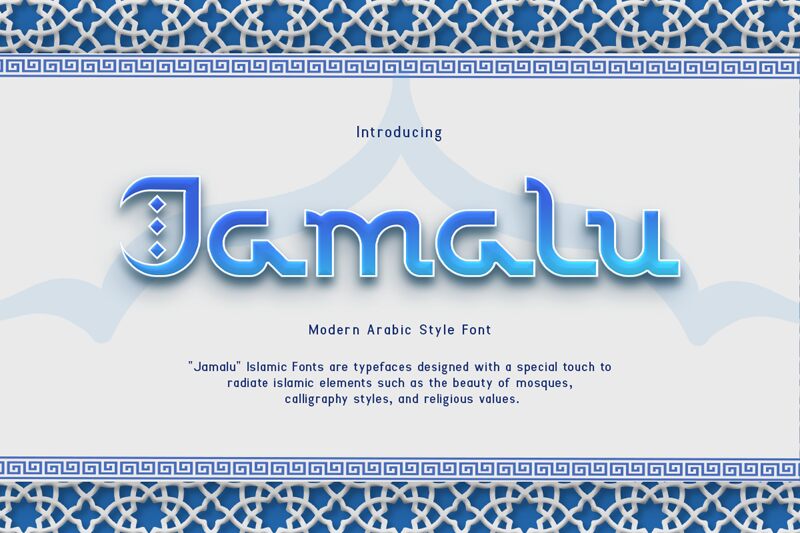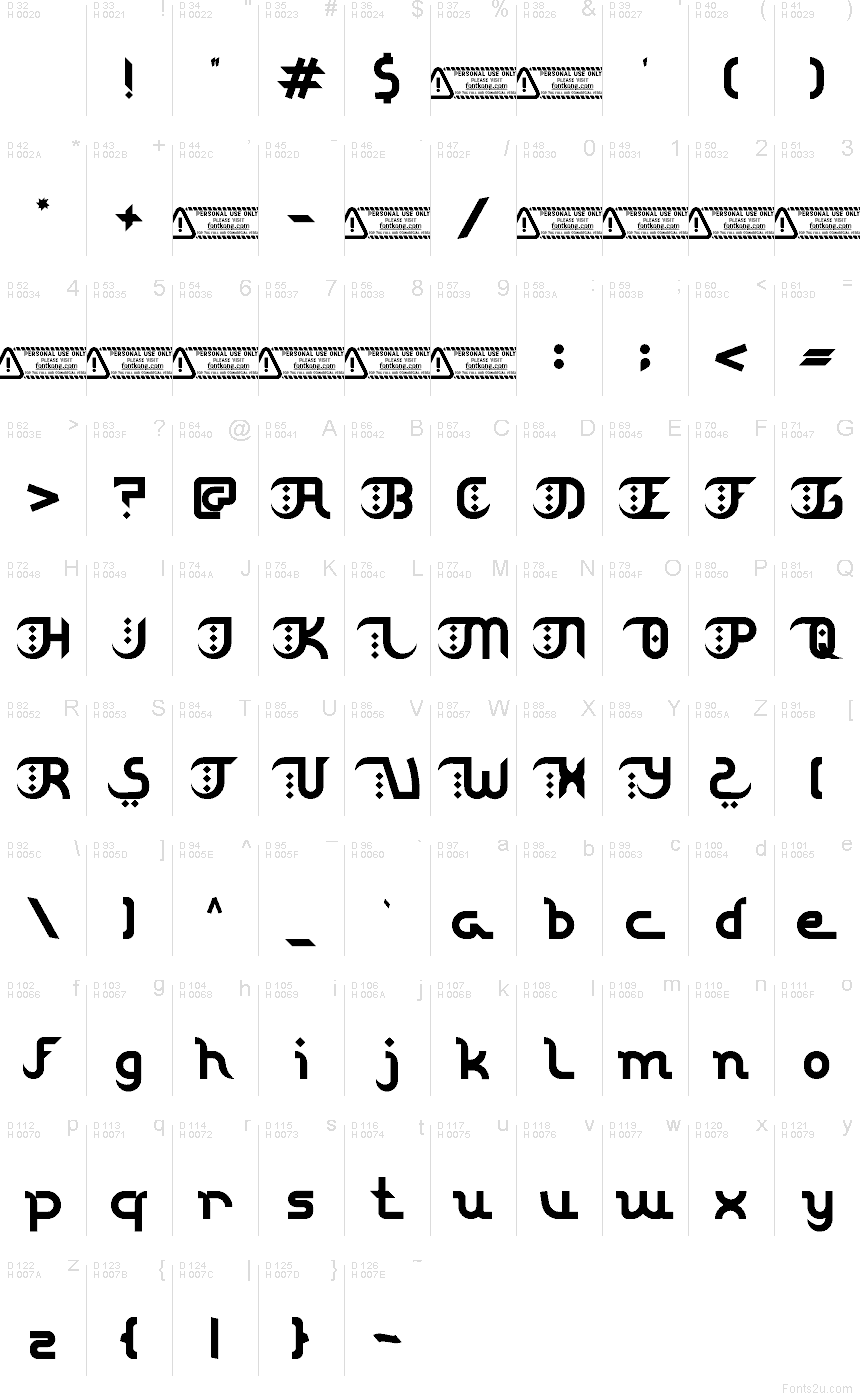
Jamalu font by Kong Font is a free decorative faux Arabic display font. Its chunky, monoline strokes curl and hook in ways that echo Arabic calligraphy, while still reading cleanly in Latin text. The rounded corners and tight, even rhythm give Jamalu a bold, emblem-like presence that feels both contemporary and rooted in tradition, great when you want a touch of Middle Eastern flair without sacrificing clarity.
Using Jamalu, you can brand cafés or restaurants, design festival and cultural event posters, create eye-catching packaging, or craft distinctive social media titles and storefront signage. This free font shines in short headlines and logotypes where its sculpted forms can breathe. For longer supporting text, pair Jamalu with a neutral sans serif at smaller sizes to keep things readable while Jamalu handles the character and mood.